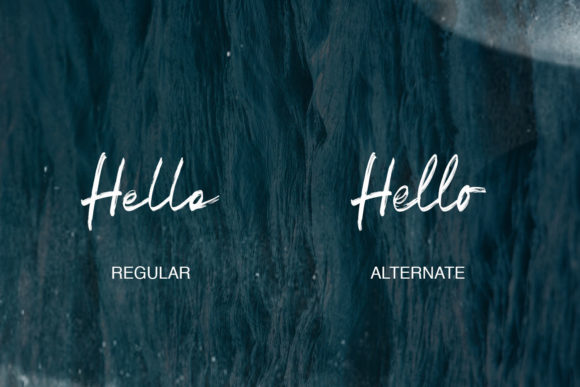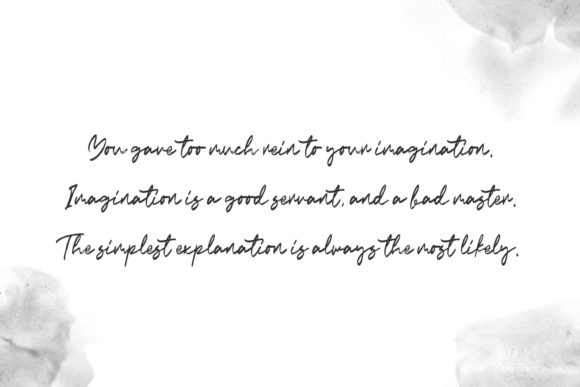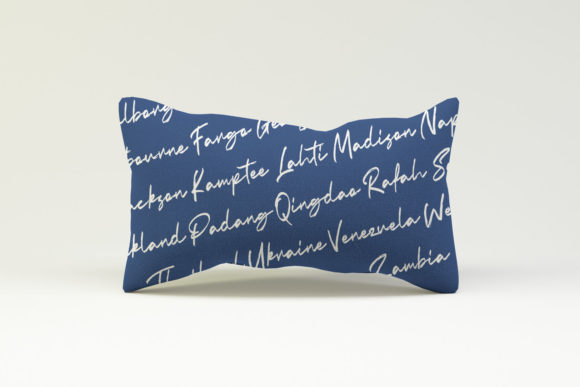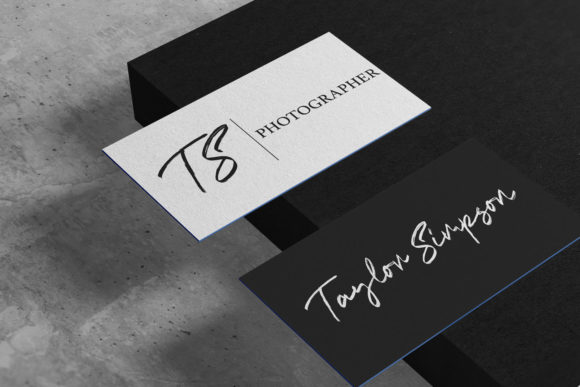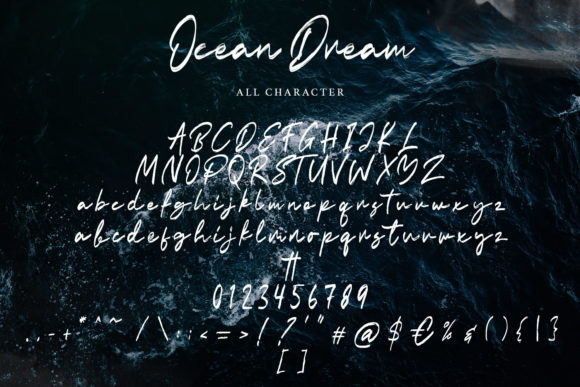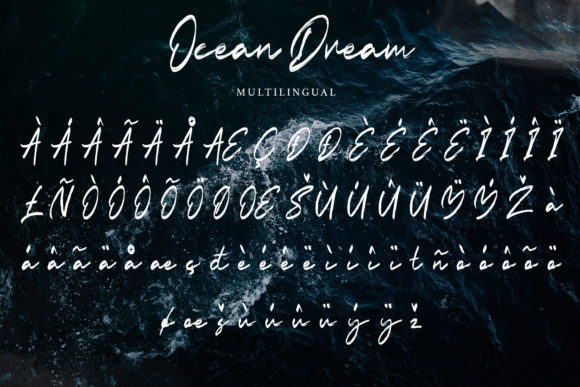
Introduction to Ocean Dream Font
Have you ever found yourself scribbling down a brilliant idea in the middle of a coffee shop, only to realize that your handwriting is more chaotic than elegant? As creatives, we’ve all been there. But what if you could capture that same free-spirited energy in your designs?
Enter the Ocean Dream Font, a modern, fun handwritten font that’s sure to bring a touch of whimsy to your next creative project. With its clean and quirky vibe, this font is the perfect fit for logos, branding, social media, and crafty DIY projects. Whether you’re a seasoned designer or a DIY enthusiast, the Ocean Dream Font is a valuable addition to your design resource arsenal, offering high-quality, free downloads with transparent backgrounds that will make your projects shine.
Key Features of Ocean Dream Font
- Unique, hand-drawn design with a dreamy, ocean-inspired aesthetic, making it perfect for creative projects.
- Perfect for designers working on creative projects, such as branding, packaging, and advertising, where a unique and eye-catching font is required.
Honest Review: Ocean Dream Font
- ✨ Unique and dreamy aesthetic that’s perfect for ocean-themed designs
- ✨ High-quality font with smooth lines and clear typography
- ⚠️ Limited character set, which might not be suitable for longer texts
- ⚠️ Some letters may not be as detailed as others, which can affect overall legibility
Tips for Getting the Most Out of Ocean Dream Font
To get the most out of Ocean Dream Font, experiment with different font sizes, colors, and combinations. Use it in creative projects, such as posters, invitations, and social media graphics. Take advantage of its transparent background feature to create visually appealing designs.
Ocean Dream Font is ideal for designing beach-themed posters, creating invitations for ocean-inspired events, and adding a touch of elegance to social media graphics. Its high-quality design makes it a valuable resource for any creative project.